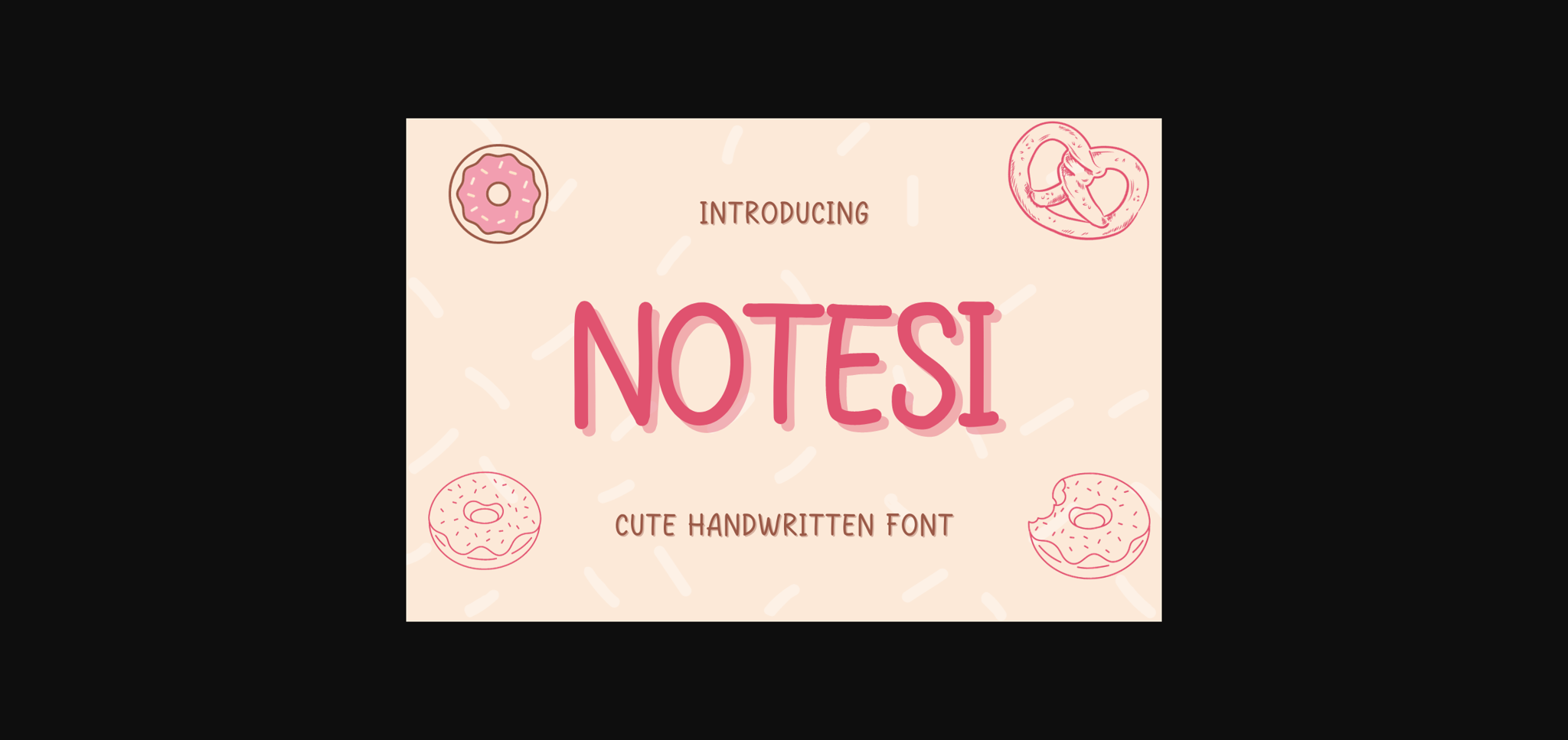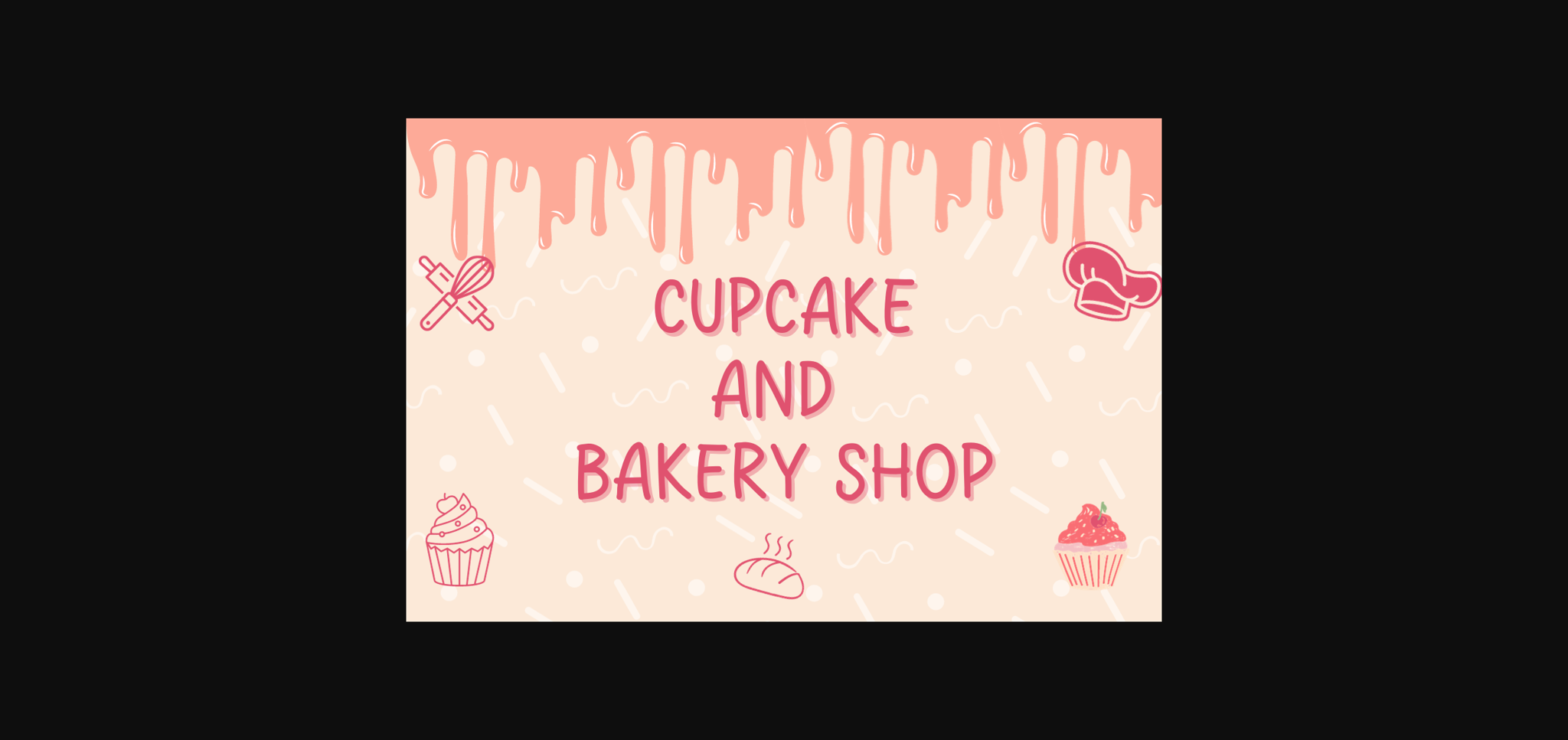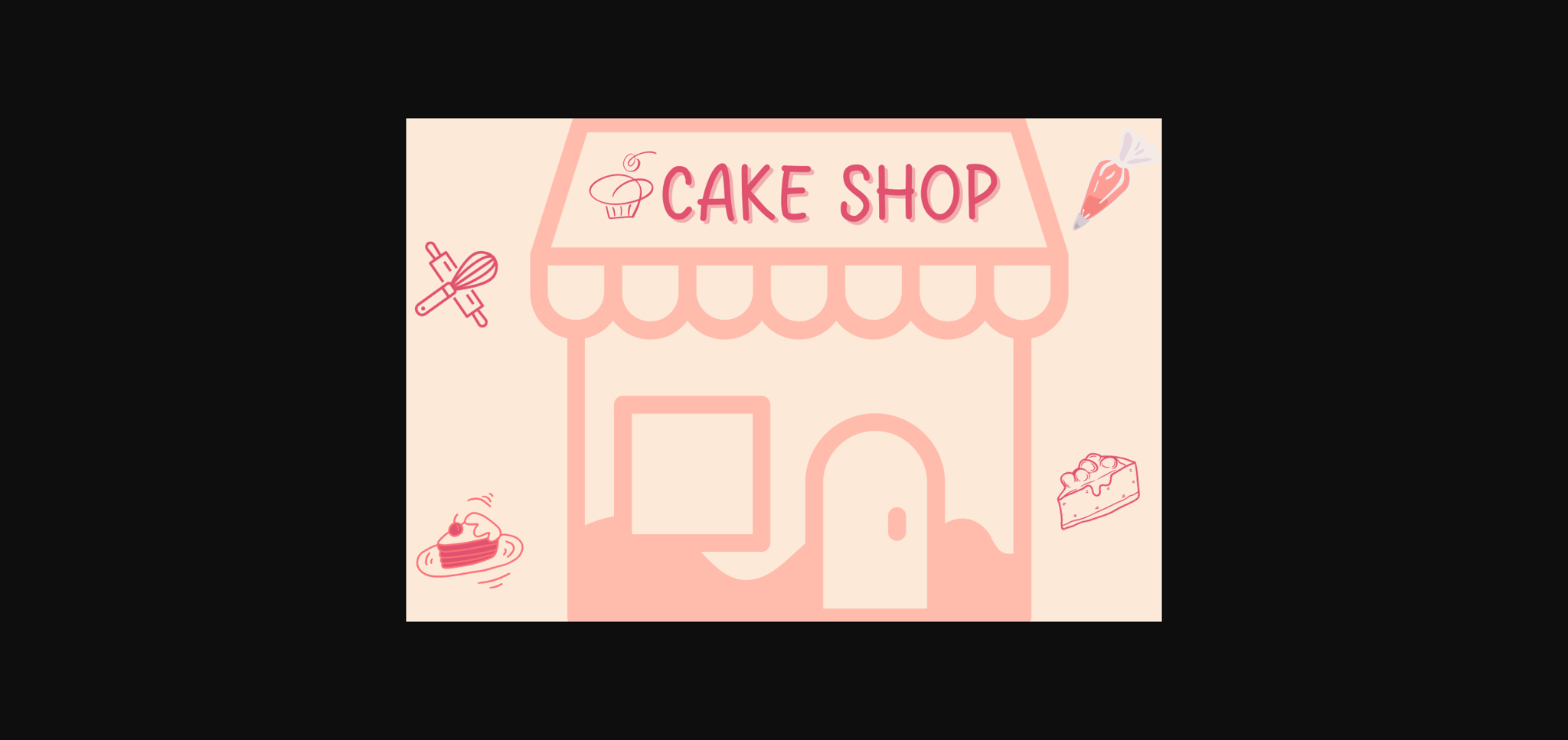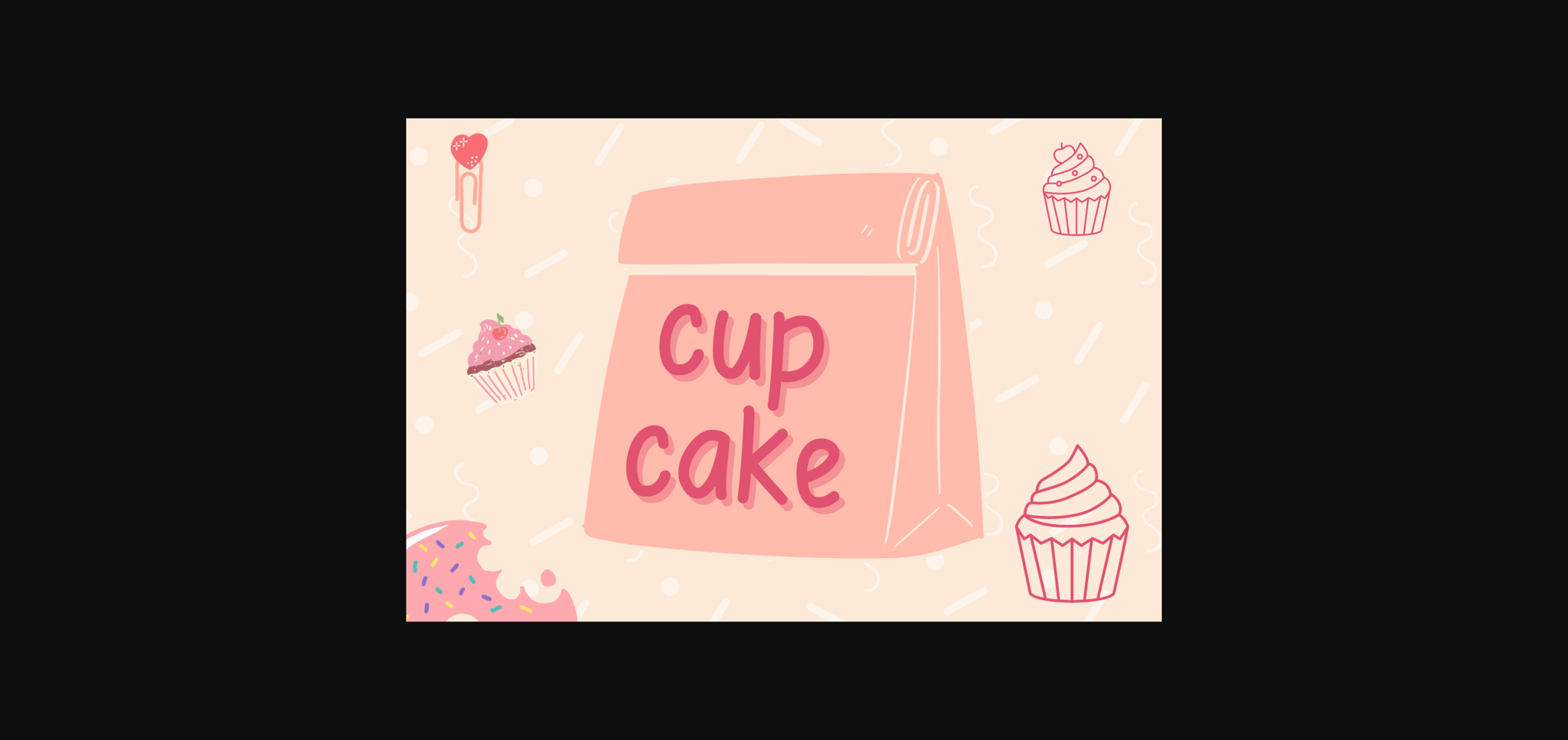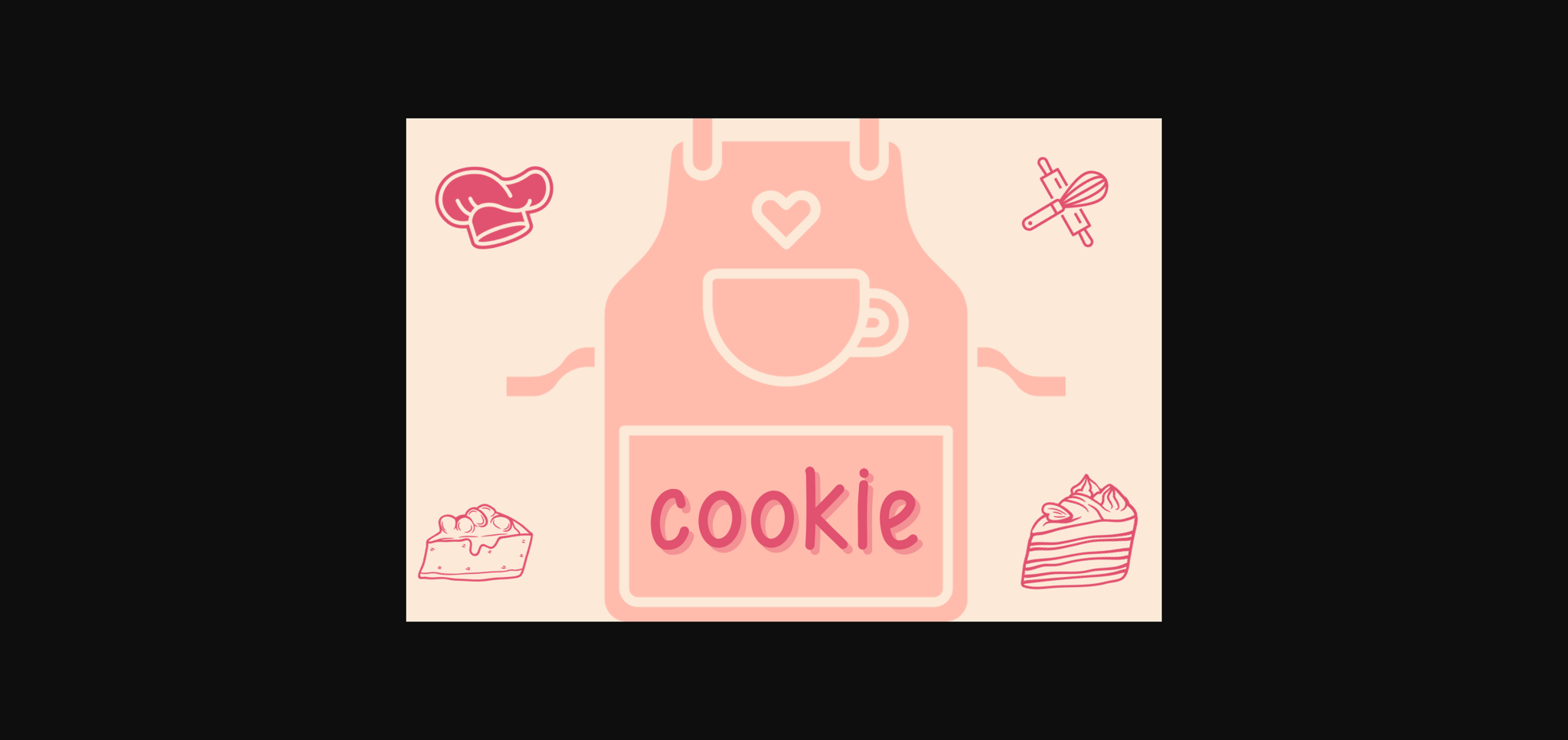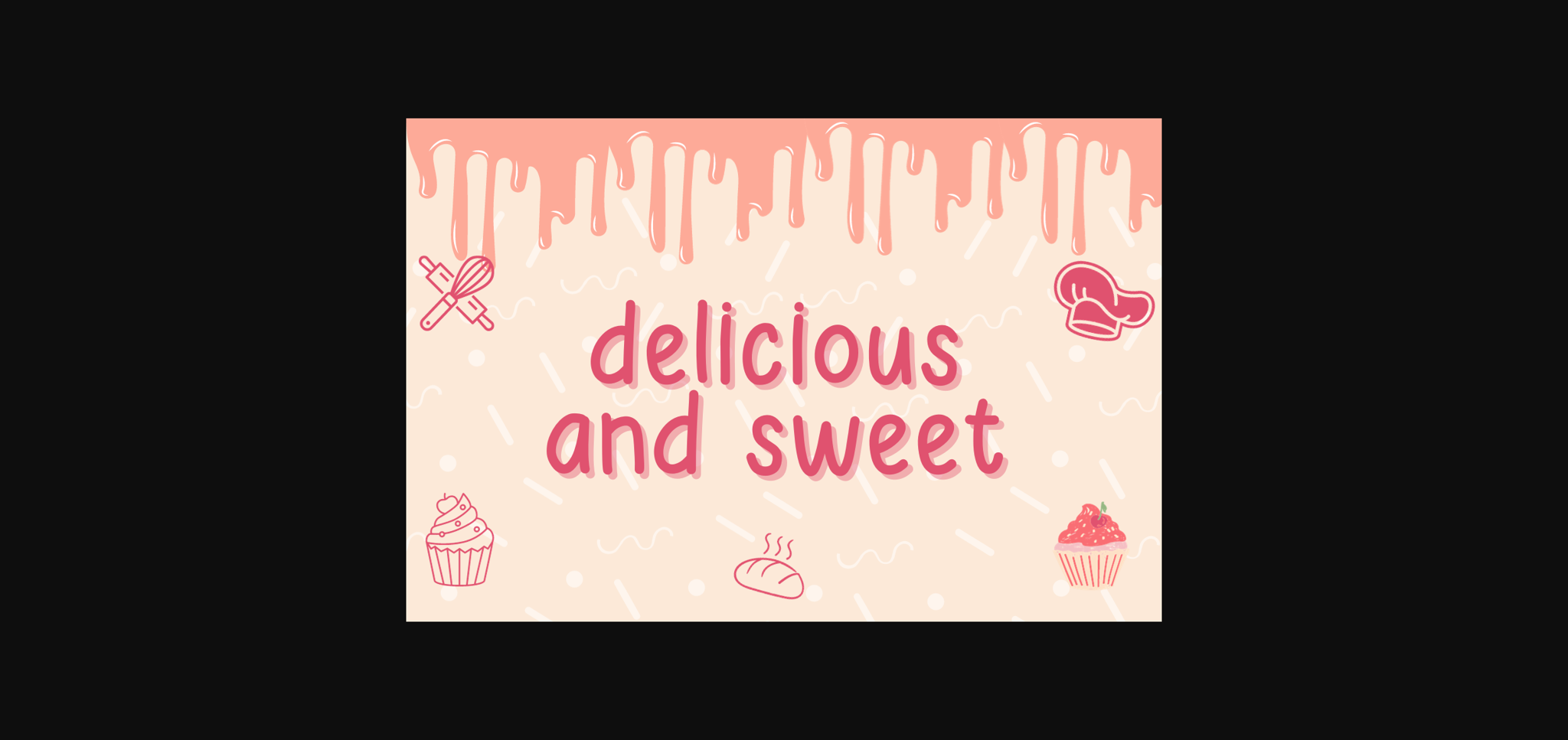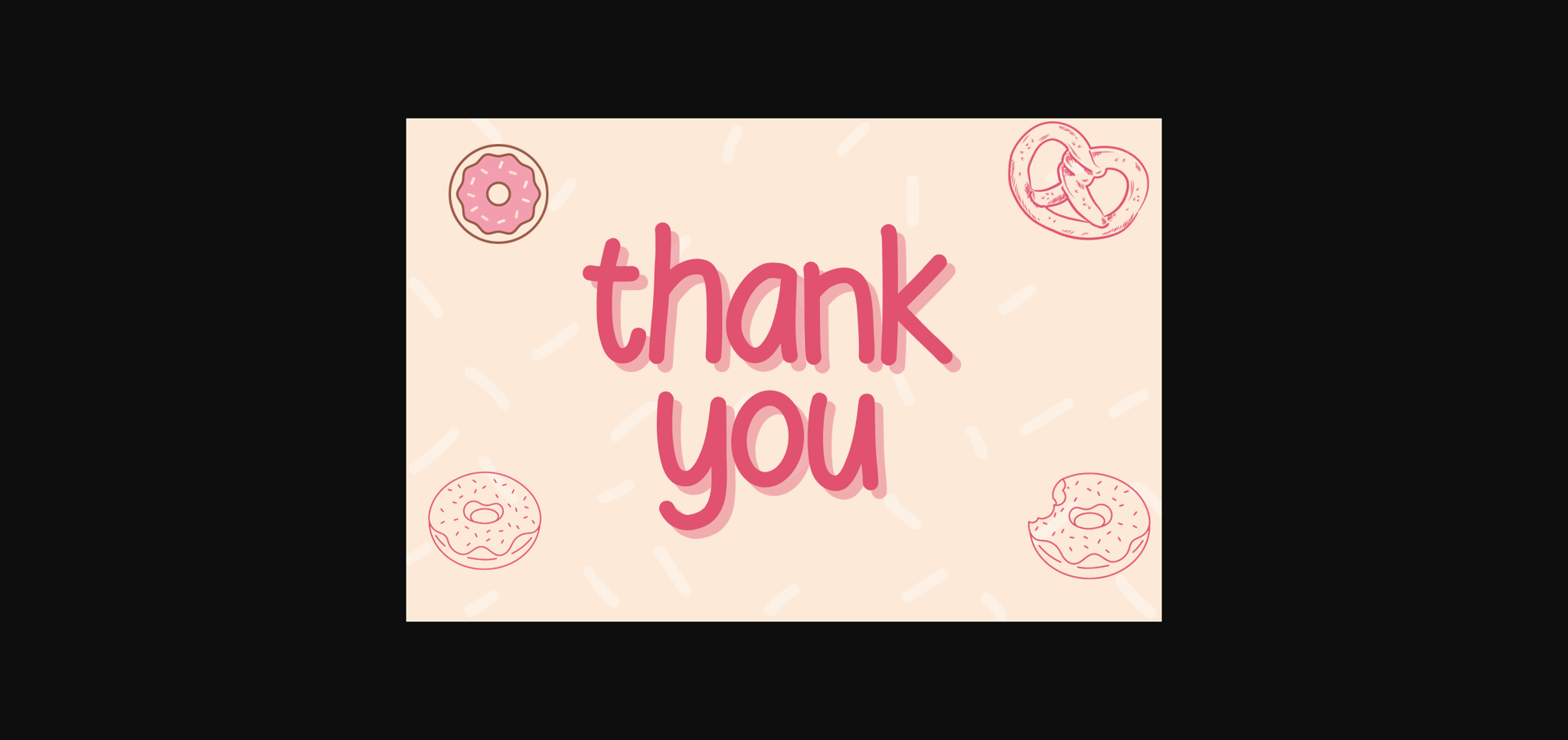
HomeSans Serif FontsNotesi Font Sans Serif Fonts Notesi Font FacebookXPinterestWhatsApp 1 of 9 ... Notesi Font Poster 2... Notesi Font Poster 3... Notesi Font Poster 4... Notesi Font Poster 5... Notesi Font Poster 6... Notesi Font Poster 7... Notesi Font Poster 8... Notesi Font Poster 9... About Notesi Font Notesi is a fun and unique sans-serif font. This font will be a great asset to your font library, as it has the potential to enhance any creation. DOWNLOAD NOW People also explored Handmade Compact Winter Snow Font Mackline Font Elinda Font Cat Rice Font Cute Girl Font Nezires Font Baby Angel Font Cat Font 360 0 TagsNotesiNotesi Font Previous articleVoltage FontNext articleMarkyie Font LEAVE A REPLY Cancel reply Comment: Please enter your comment! Name:* Please enter your name here Email:* You have entered an incorrect email address! Please enter your email address here Website: Save my name, email, and website in this browser for the next time I comment. Personal Use Free Kaylafiz Personal Use Free Read more about this font Adeline Personal Use Free Read more about this font Americana Personal Use Free Read more about this font Angola Beach Personal Use Free Read more about this font BLOG Top 10 Handwritten Fonts That Elevate Your Designs Top 10 Handwritten Fonts That Will Elevate Your Designs Handwritten fonts bring a warm, personal touch to every creative project. Whether you're designing logos, invitations,... Free Fonts Risk: Why Free Fonts Can Be Dangerous for Designers The 10 Best Handwriting Fonts to Add Personality to Your Designs How to Install and Use Fonts on Windows, macOS, and Web Projects